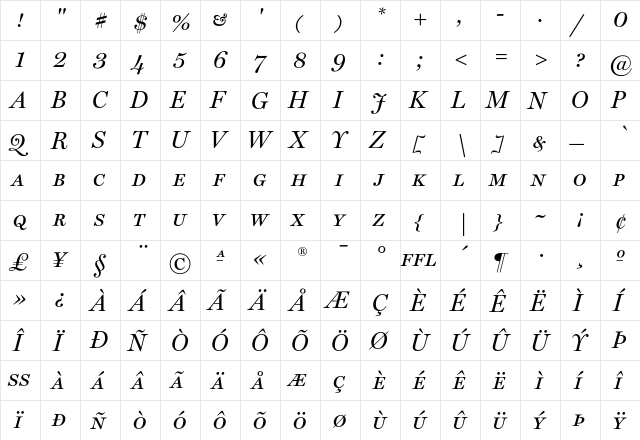
MillerDisplay ItalicSC Font Preview
MillerDisplay ItalicSC
Design Context for MillerDisplay Typeface
MillerDisplay is built around its visual character rather than neutral utility — its distinctive forms are designed to make an impression at display sizes. Its italic angle brings a sense of urgency and motion to the letterforms.
Font Pairing: Pair with a clean neutral sans-serif for body copy to let MillerDisplay's character lead without overwhelming the composition.
Pro Tip: Use MillerDisplay exclusively at display sizes — it was designed to be seen, not read at length. Let a neutral companion handle body copy.